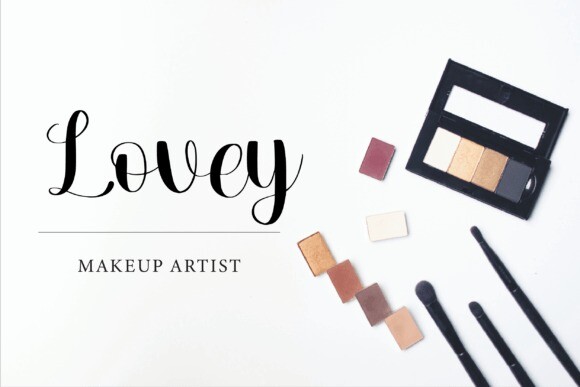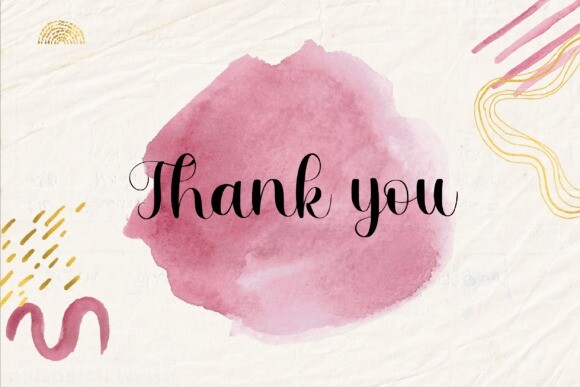
Beauty Font
Beauty font is the perfect choice for designs that require a touch of elegance, classic and luxury. This font will make your designs more attractive and eye-catching, giving the viewer an unforgettable impression.
Beauty fonts can be used in a variety of design contexts, such as logos, letterheads, invitations, promotional materials and product designs. The use of Beauty fonts in designs can give an exclusive, classy and professional impression, as well as reflect the premium quality of the products or brands being sold.